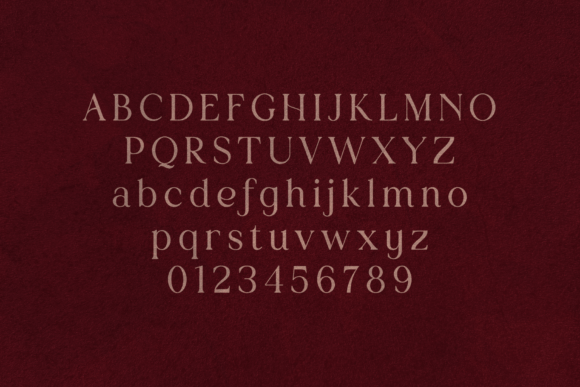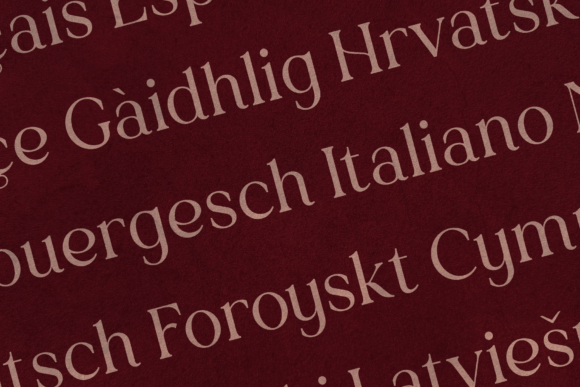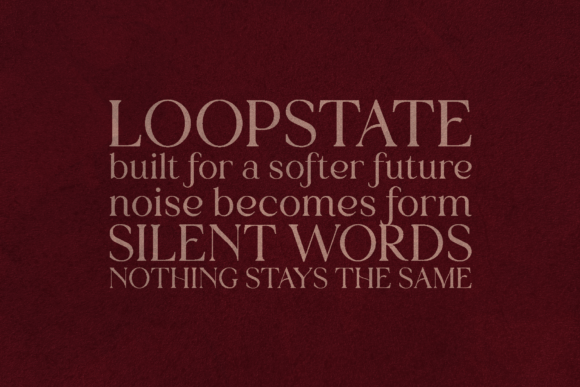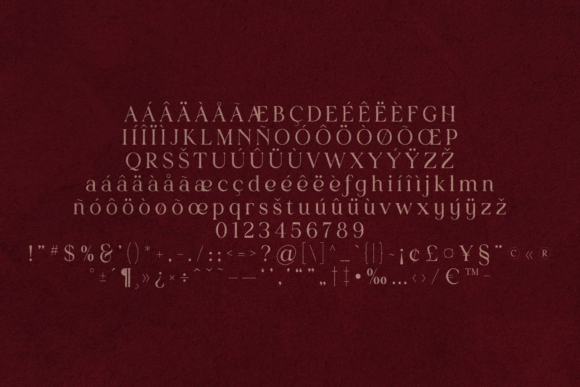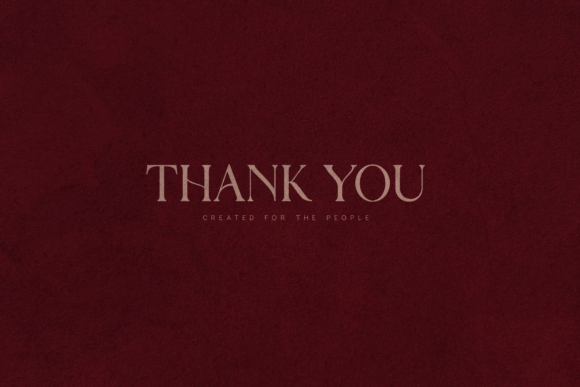
The Perfect Blend of Emotion and Clarity: Introducing Creators Type Font
Have you ever stared at a blank page, struggling to find the perfect font to bring your creative vision to life? The blank page can be intimidating, but it’s in these moments that we discover the true power of typography. For designers, the right font can be the difference between a good design and a great one.
Enter Creators Type Font, a modern serif font designed to evoke emotion, clarity, and character. This beautifully crafted font is perfect for designers who value unique typography that adds a touch of personality to their work. With its carefully balanced proportions, soft serifs, and subtle organic flow, Creators Type Font is an ideal choice for editorial design, branding, packaging, posters, and creative storytelling.
Creators Type Font Key Features
- Font Family: A custom-designed typeface with a unique blend of modern and classic elements.
- Unique Characteristics: Features a distinctive x-height, generous spacing, and a subtle flair at the terminals, making it highly legible and aesthetically pleasing.
Review of Creators Type Font
Overall, I was excited to dive into Creators Type Font, but my experience was a mix of great and not-so-great. ✨
- Creators Type Font is highly legible, making it perfect for long-form content. The font is designed to be easy on the eyes, even at smaller sizes.
- The font’s versatility is a major strength. It works well for both modern and traditional designs, making it a great addition to any project.
- The font’s OpenType features are a game-changer. With features like ligatures and contextual alternates, Creators Type Font adds a level of sophistication to any design.
- ⚠️ The font’s weight is a bit inconsistent, with some weights feeling a bit too similar to one another.
- ⚠️ The font’s italic and bold italic styles are a bit too condensed, which can make them harder to read.
- ⚠️ The font’s support for non-Latin scripts is limited, which can be a major issue for projects that require multilingual support.
While Creators Type Font has its limitations, I believe it’s still a solid addition to any designer’s toolkit. With a bit of tweaking and careful selection of weights, it can produce some truly stunning results. However, I would recommend it for projects that prioritize legibility and versatility over a wide range of weights and languages.
Tips for Getting the Most Out of Creators Type Font
Use Creators Type Font for titles, headings, and emphasis to add a touch of elegance to your designs.
Experiment with different font sizes and colors to create visual hierarchy and balance in your designs.
Combine Creators Type Font with other fonts to create a unique and stylish typography.
Use Creators Type Font for:
Business cards and resumes
Alternatives to “Creators Type Font” for Designers
Montserrat is a sans-serif typeface designed by Julieta Ulanovsky. It is a great choice for designers who need a clean and modern font for digital and print projects. Montserrat is similar to Creators Type Font in terms of its modern feel, but it has a more geometric and industrial look. It’s ideal for use in headings and titles.
Open Sans is a sans-serif typeface designed by Steve Matteson. It is a highly legible font that is suitable for a wide range of design projects, including digital interfaces, magazines, and books. Compared to Creators Type Font, Open Sans is more neutral and less ornate, making it a great choice for designs where simplicity is key.